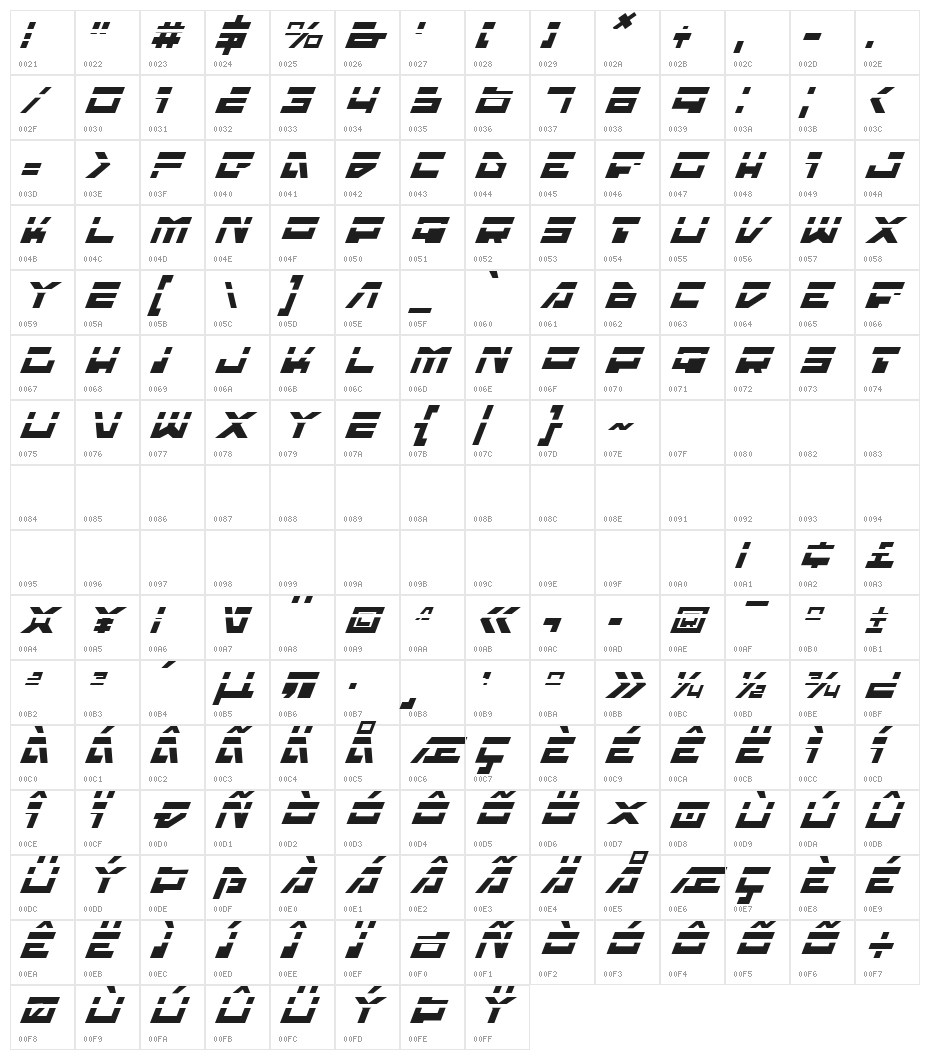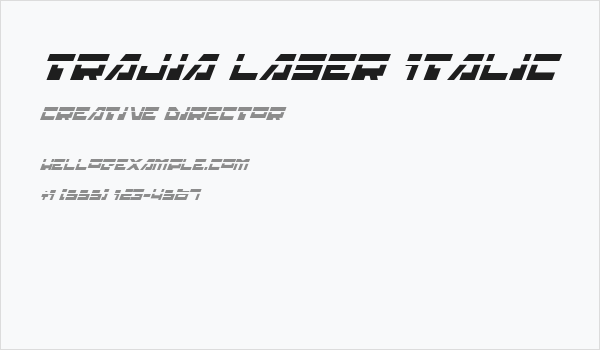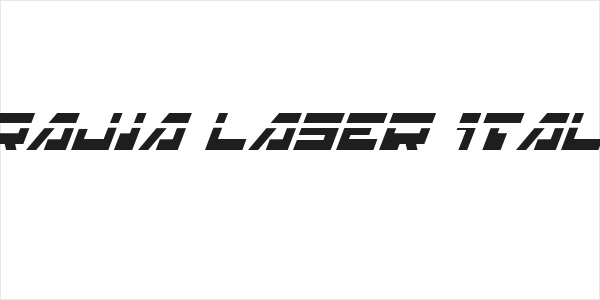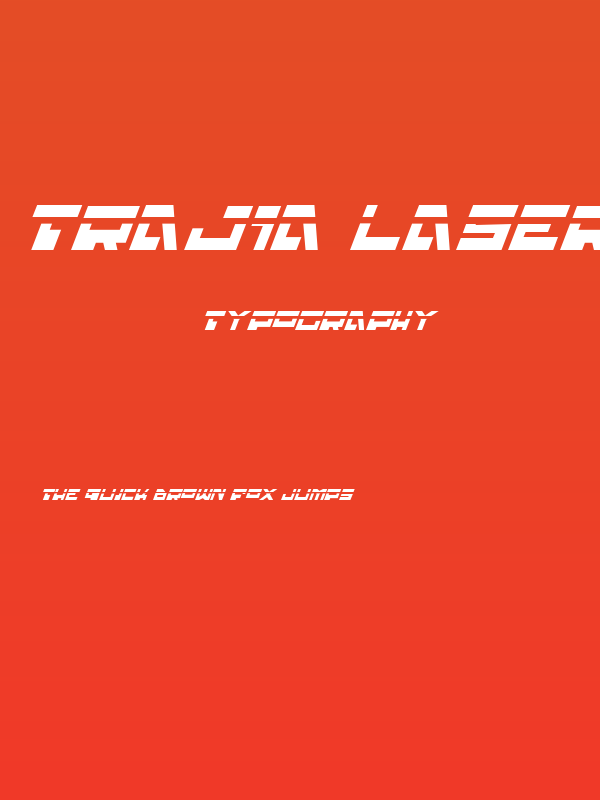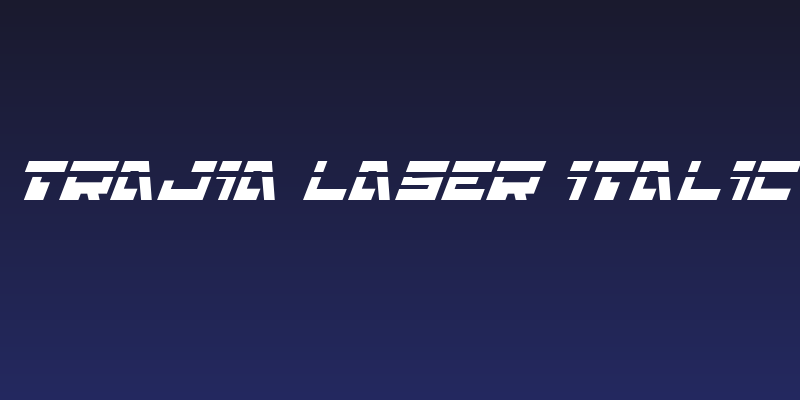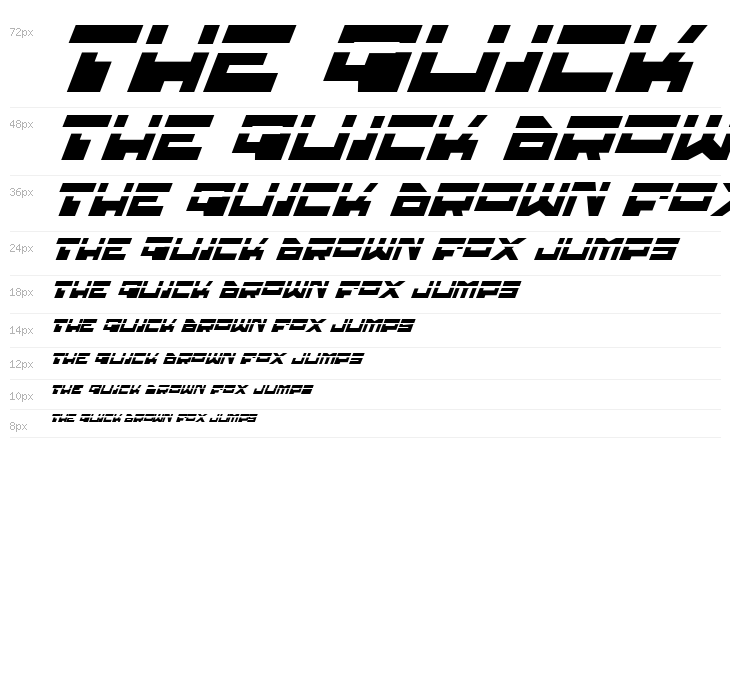
Trajia Laser Italic Font
Trajia Laser Italic Description
This font features a futuristic and angular design with sharp edges and a distinct italic slant, giving it a dynamic and forward-moving appearance. The characters are bold and geometric, with a consistent stroke width that adds to its modern and tech-inspired aesthetic. The uppercase and lowercase letters maintain a uniform style, while the numbers and special characters complement the overall design. The font's unique structure makes it stand out, ideal for projects that require a bold and innovative look.